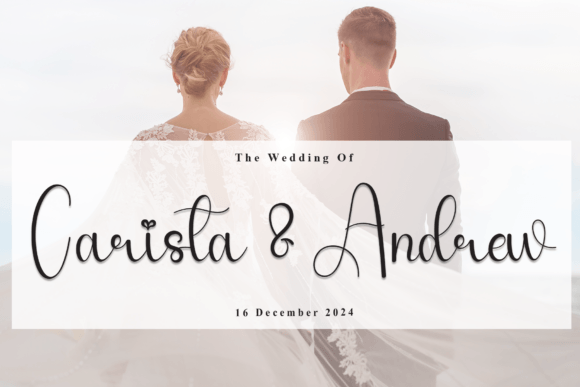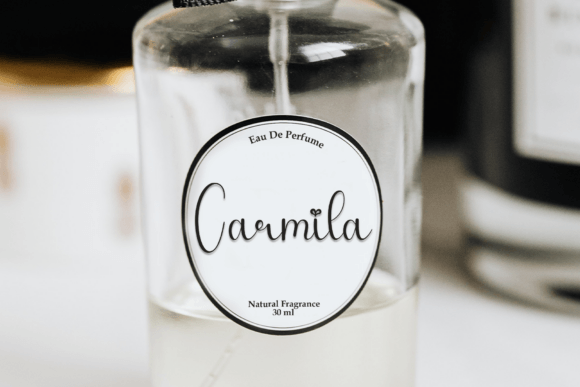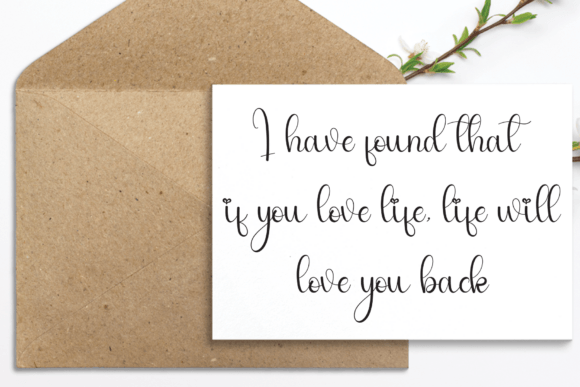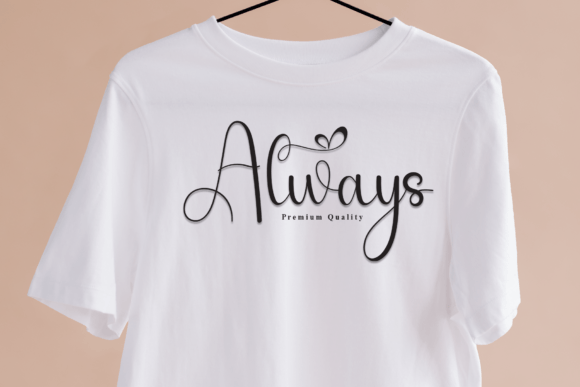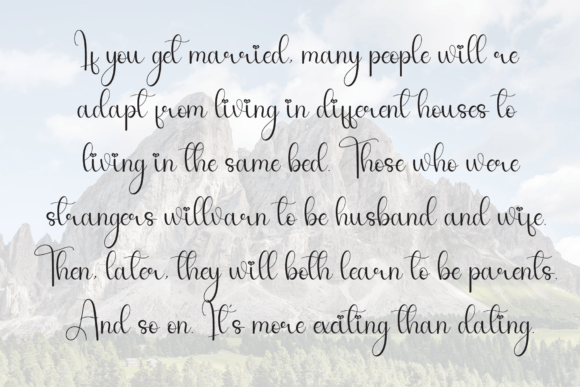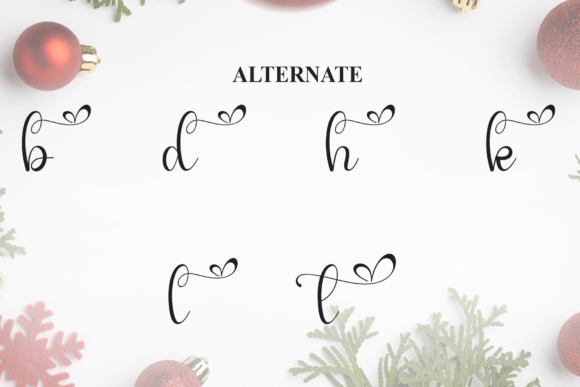
Meet Christmas Font: Your New Playful Design Partner
Ah, the holiday season is upon us, and you know what that means – a flurry of festive design projects! I still remember the time I was working on a whimsical wedding invitation for a client, and I just couldn’t find the right font to capture the playful, joyful vibe they wanted. The project was stalled, and I was on the verge of a designer’s block. That’s when I stumbled upon Christmas Font, and it instantly became my go-to font for all things merry and bright!
A Font that Spreads Joy
Christmas Font is a charming and whimsical handwritten display font that instantly adds a lively touch to any project. With its adorable and friendly demeanor, this font is an absolute delight to use for whimsical wedding invitations, heartwarming cards, or any creative project requiring a dash of fun. Amazingly versatile, this font injects a youthful energy and joy that helps your designs stand out from the rest!
- ✨ The playful, handwritten feel that adds a personal touch to any design
- ✅ The font’s versatility – it works beautifully for both digital and print projects
- 🎉 The range of OpenType features, glyphs, and stylistic alternates that allow for endless creativity
- 👍 The font’s readability, even at smaller sizes
While Christmas Font is an amazing design partner, there are a few things to keep in mind:
- ⚠️ The font might not be the best choice for very formal or traditional designs, as it has a distinctly playful feel.
- 🤔 Some of the glyphs and stylistic alternates can be a bit tricky to navigate, especially for beginners.
The Designer Inspiration Behind Christmas Font
According to the font’s creator, Christmas Font was inspired by the joy and magic of the holiday season. The designer wanted to create a font that would capture the whimsy and playfulness of winter, while still being versatile and easy to use. The result is a font that’s perfect for designers, crafters, and creative hobbyists looking to add a dash of fun to their projects.
Q: Is Christmas Font suitable for body text?
A: While Christmas Font is a beautiful and playful font, it’s best suited for headlines, titles, and short paragraphs. For body text, you might want to choose a font with better readability.